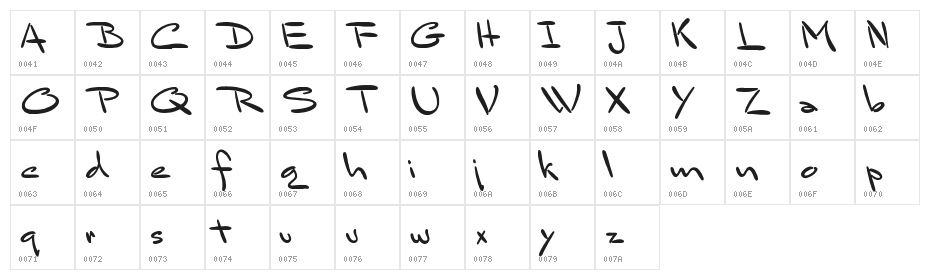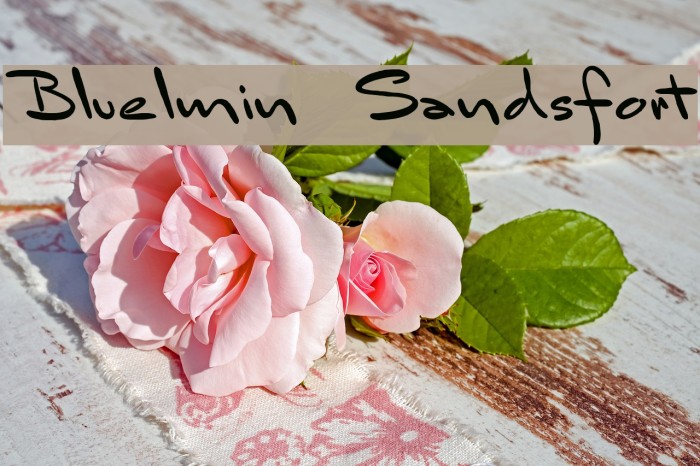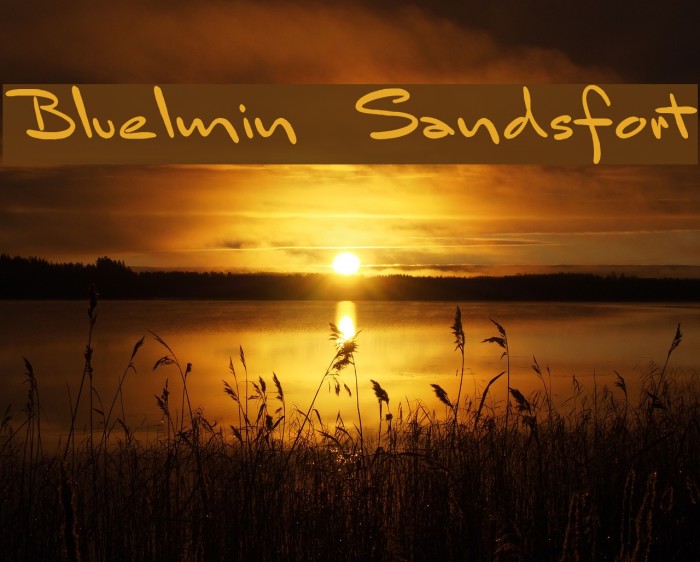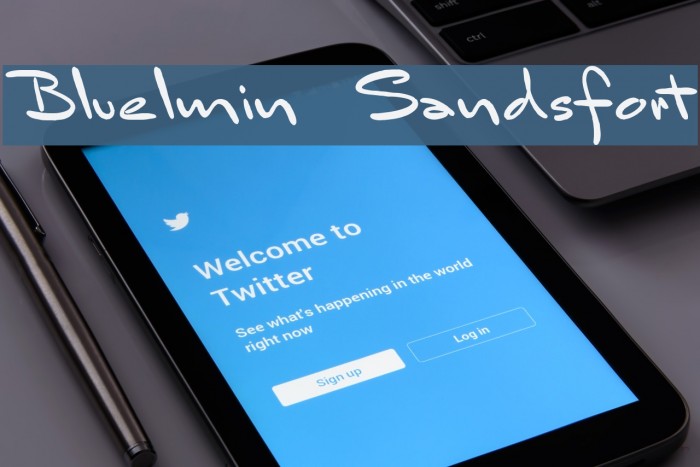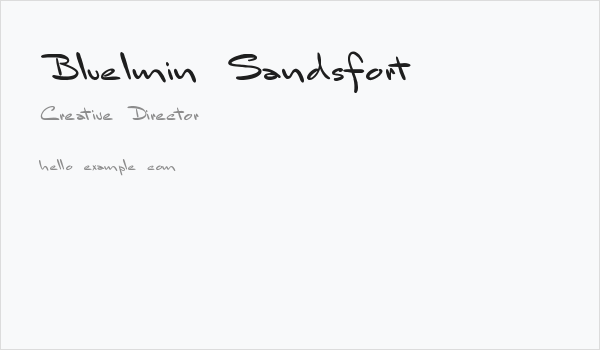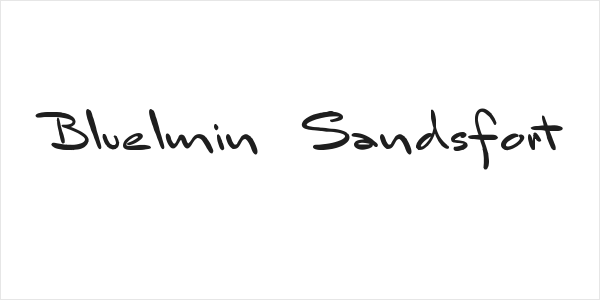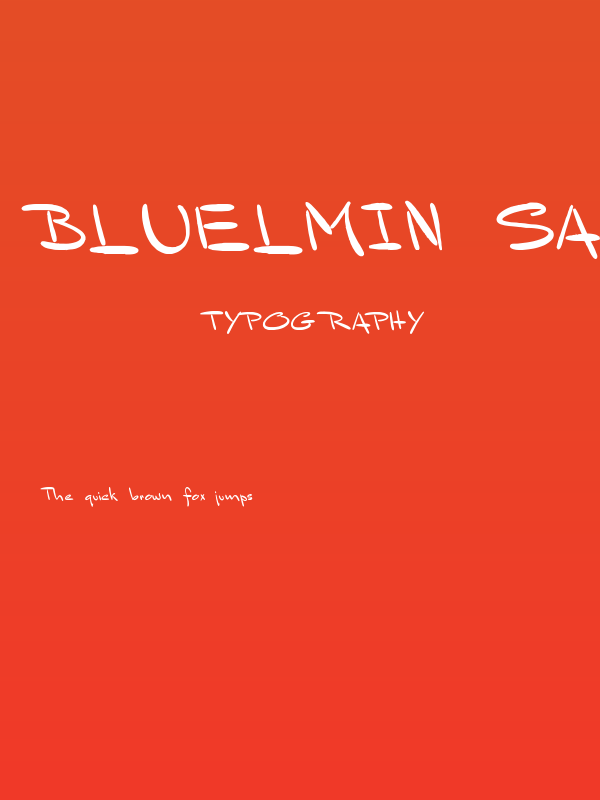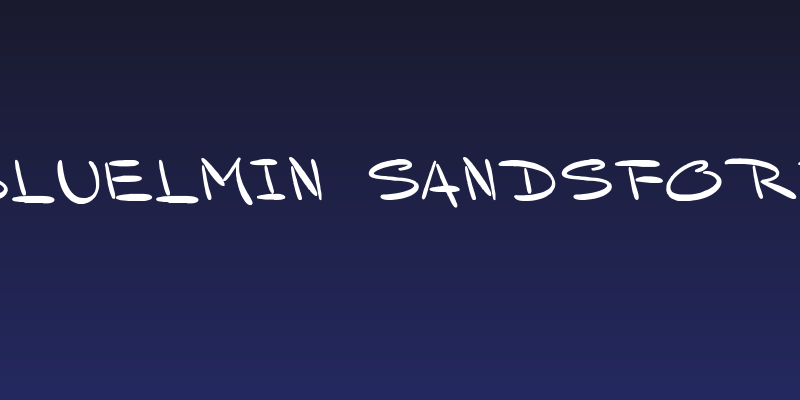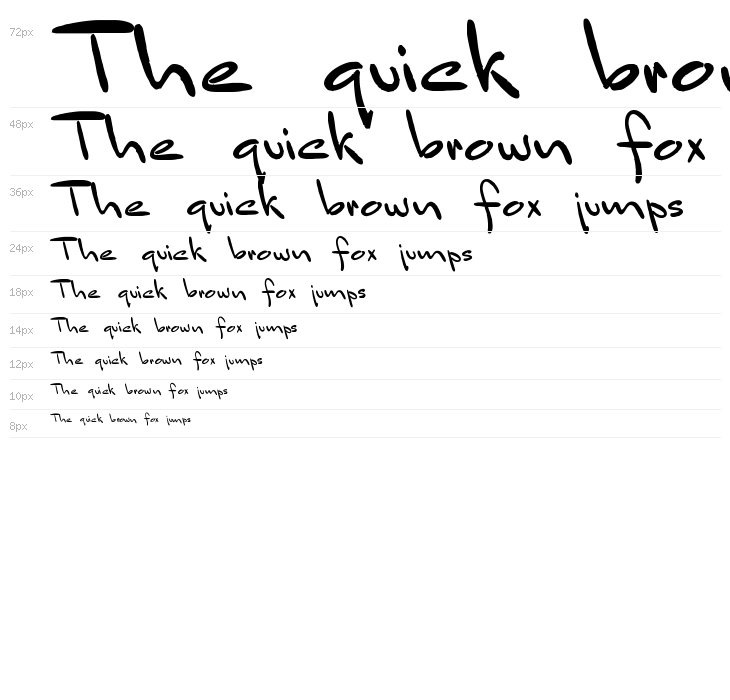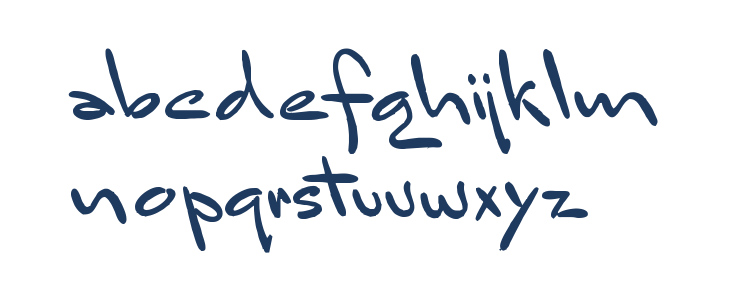
Bluelmin Sandsfort Font
Bluelmin Sandsfort Description
This font features a playful and dynamic handwritten style, characterized by its fluid and slightly irregular strokes. The uppercase letters maintain a consistent height, while the lowercase letters exhibit a more varied baseline, adding to the casual and informal appearance. The strokes are moderately thick, providing a bold presence without overwhelming the design. The font's organic feel is enhanced by the slight slant and varying stroke widths, which mimic the natural flow of handwriting. It is well-suited for projects that require a personal touch, such as invitations, greeting cards, or branding for creative businesses.
Overall StyleCasual
Use CaseLogos, Headlines, Invitations
Proposed ProjectsIdeal for invitations, greeting cards, creative branding, and personal projects.